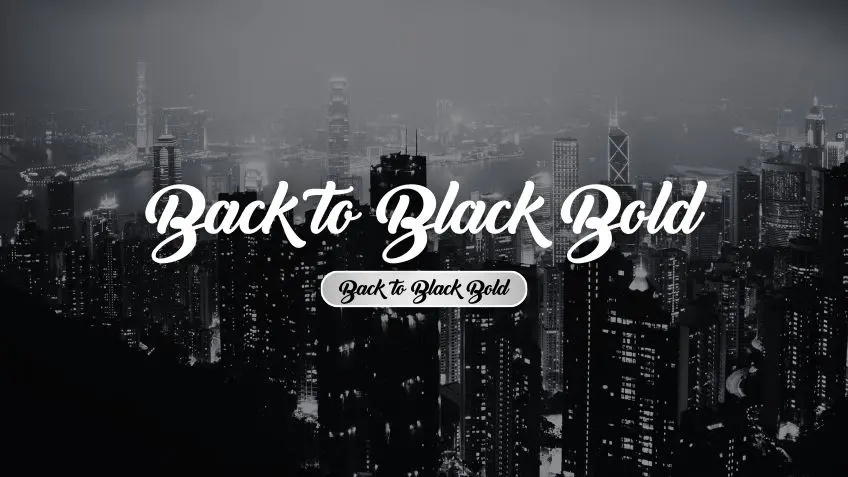
The font Back to Black Bold Demo, designed by Misti's Fonts, falls under the Script category & Back to Black Bold font family. Its smooth, flowing letterforms make it a versatile choice for projects that require both elegance and readability. Back to Black Bold is particularly well-suited for Greeting Cards and Invitations, Logos and Branding, Social media graphics, Short headlines and titles and Craft and DIY Projects. With its balance of simplicity and decorative appeal, this font brings a polished touch to both personal and professional designs.